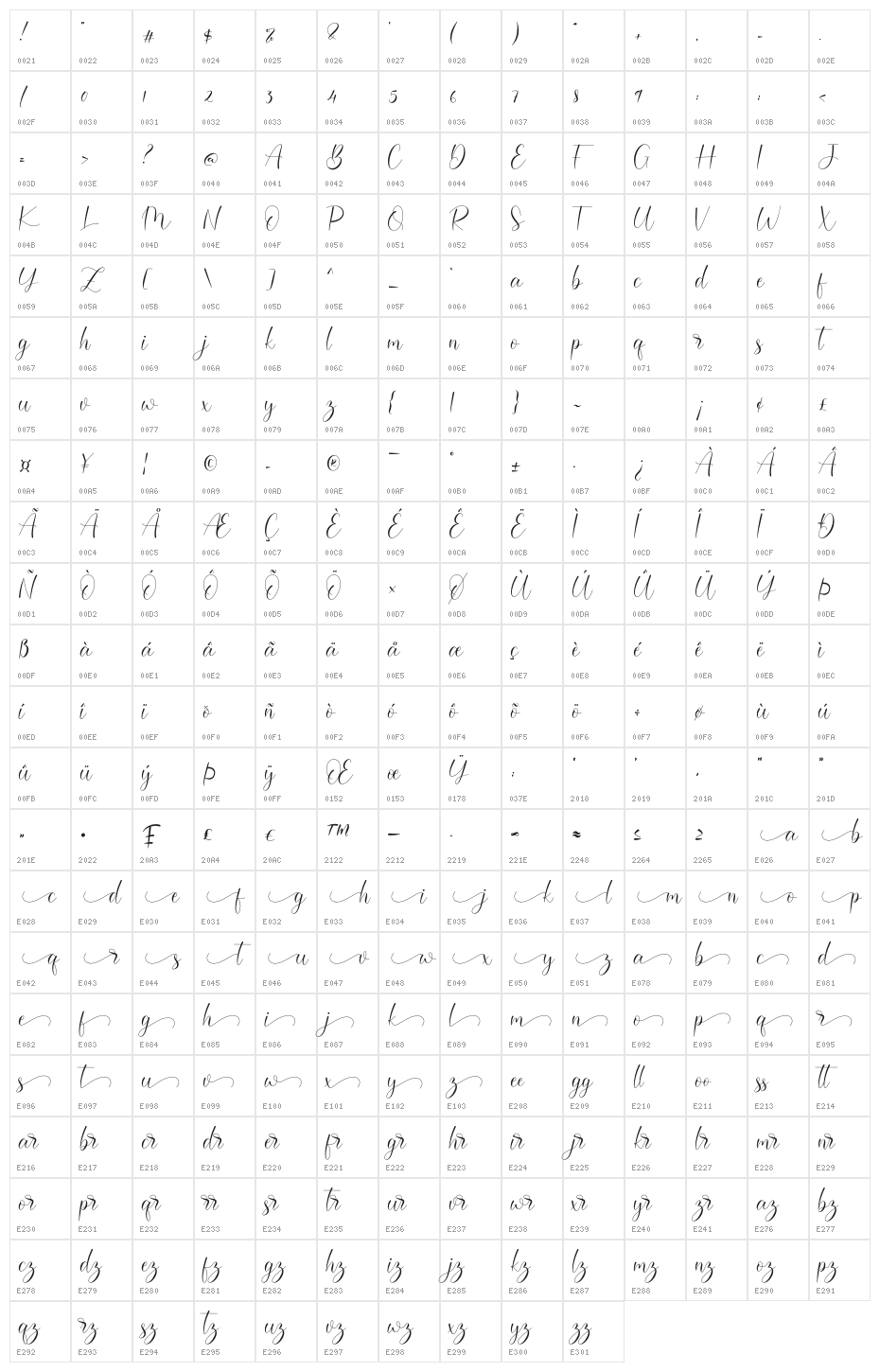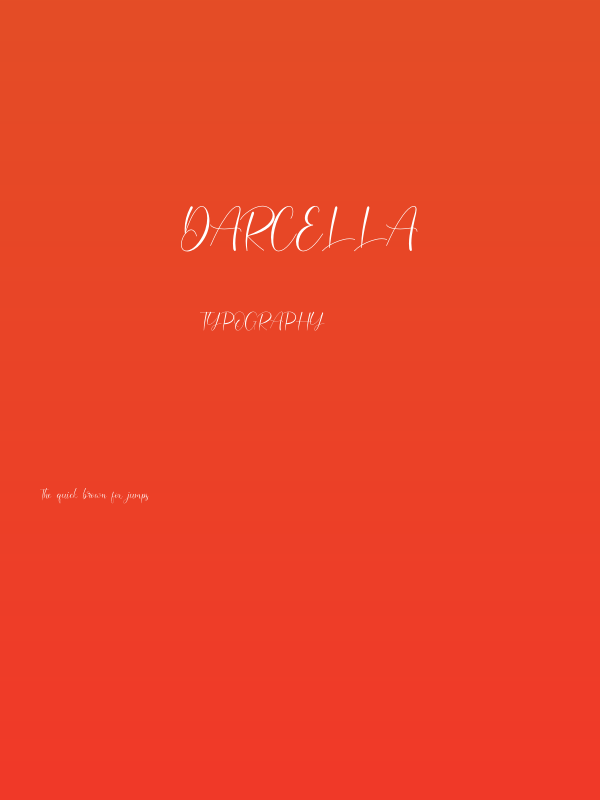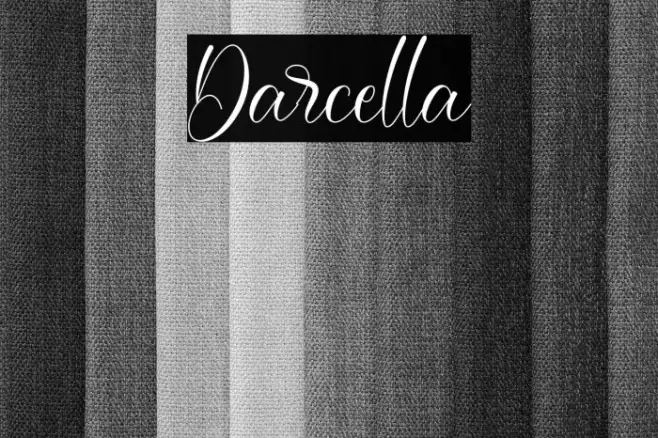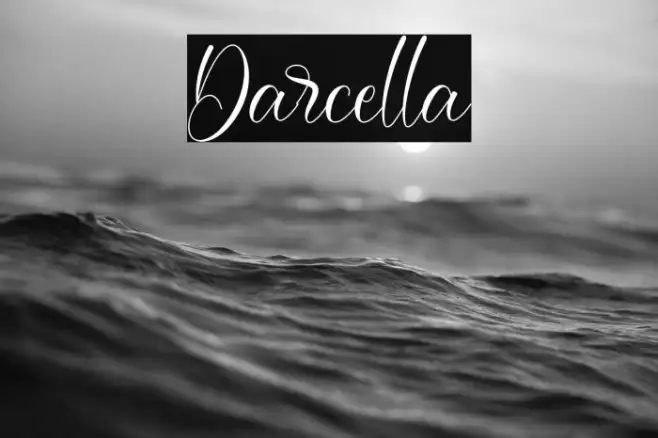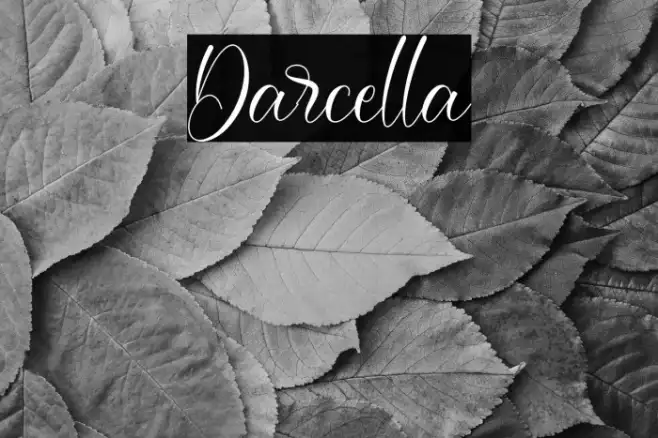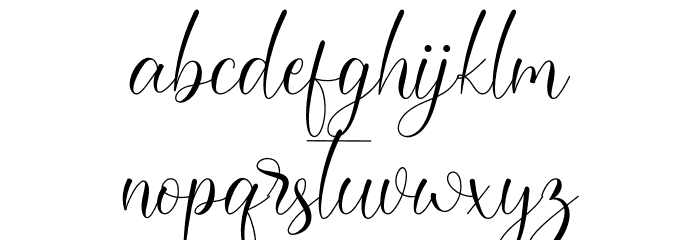
Darcella Font
Darcella Description
This elegant script font features a flowing, cursive style with a modern twist. The characters are connected with smooth, sweeping strokes that give it a graceful and sophisticated appearance. The uppercase letters are tall and slender, while the lowercase letters maintain a consistent flow, enhancing readability. The numerals and special characters are crafted with the same attention to detail, ensuring a cohesive look across all text. This font exudes a sense of elegance and charm, making it ideal for projects that require a touch of class and refinement.
| Overall Style | Elegant, Modern |
| Use Case | Logos, Invitations, Decorative text |
| Proposed Projects | Ideal for wedding invitations, elegant branding, greeting cards, and upscale packaging. |